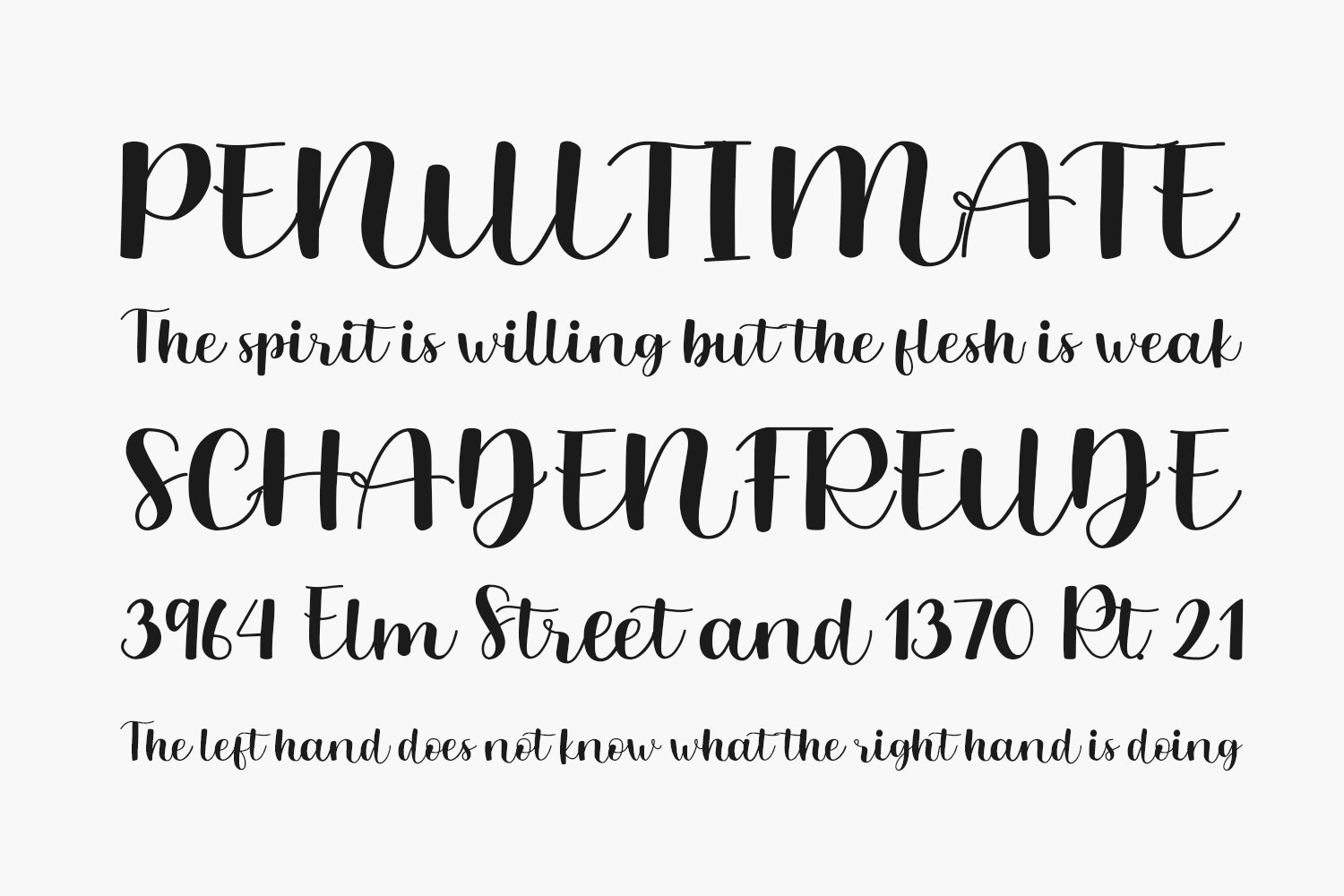
Introducing Mitta Sweety Free Font, a stunning script font crafted to perfection, ideal for evoking romance in designs like invitations or keepsakes. Elevate any creative concept with this captivating font. Download the font for free if you need it for personal use or purchase the full version for commercial use.
Designed by Ikrar Bey Khubaib